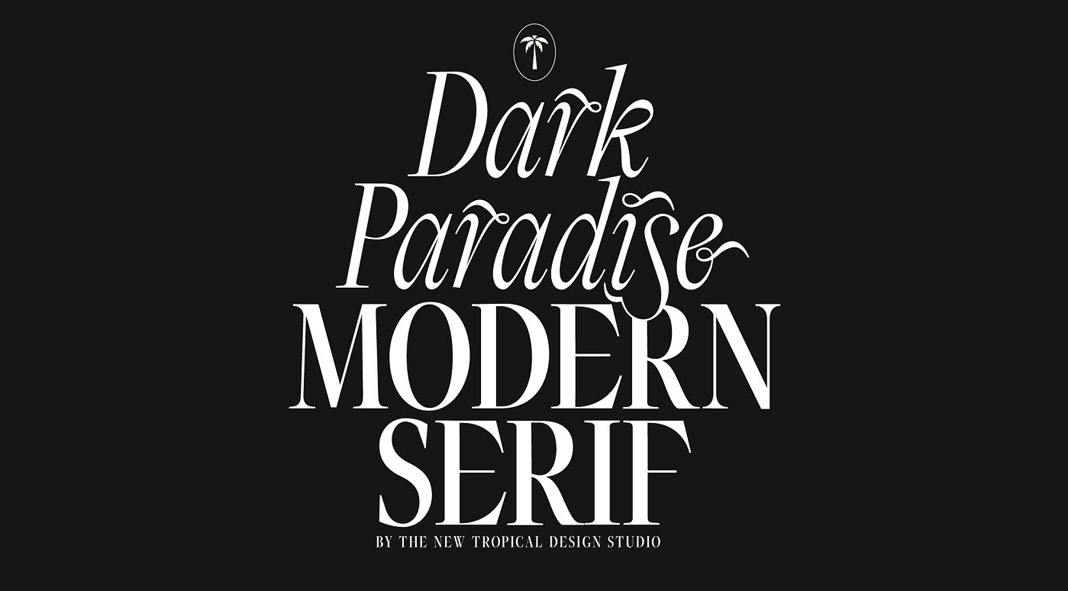
Dark Paradise, a modern serif font with a touch of vintage by New Tropical Design.
The team of New Tropical Design just published Dark Paradise, a modern serif font with strong edgy contrasts and intricately decorated italic letters. The italics come with many alternate characters to create a nice typographic juxtaposition. The Dark Paradise font is well suited for a wide range of work including logotypes, titles, quotes, packaging, branding, websites, just to name a few. If you purchased this typeface just take a look at the readme file in the download folder for a guide to accessing alternates. For further information about all typographic features, feel free to click on the following link.